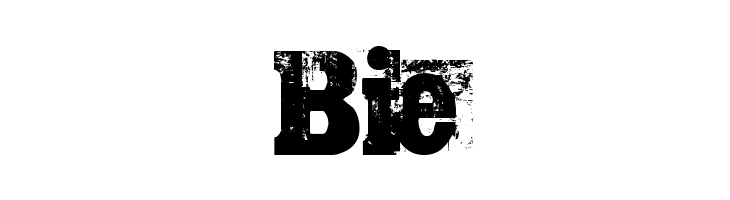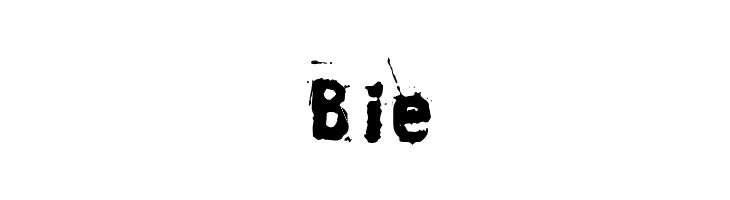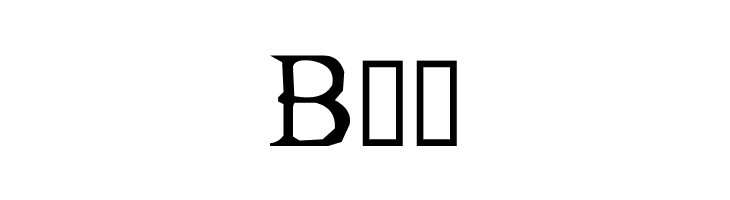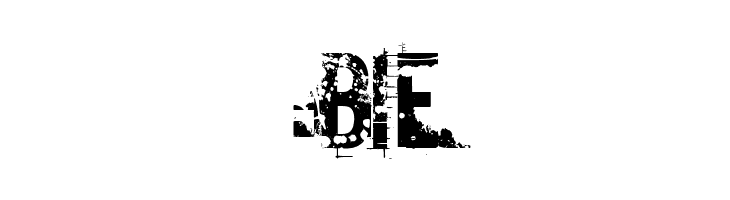
A bold, distressed slab serif font with a grunge texture.
A bold, cracked font with a distressed and edgy appearance.
A bold, distressed font with a rugged, industrial style.
A bold, distressed font with irregular, fragmented letterforms.
A bold, textured font with a rugged, distressed appearance.